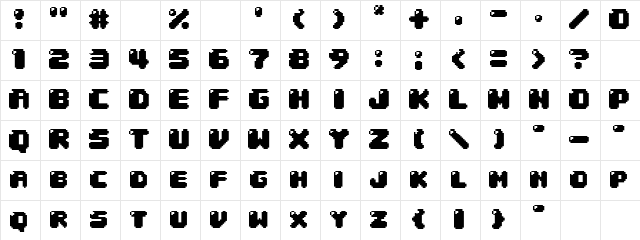
04b 30
Design Context for 04b
04b is a composed and adaptable typeface that performs quietly and consistently across a wide range of design contexts.